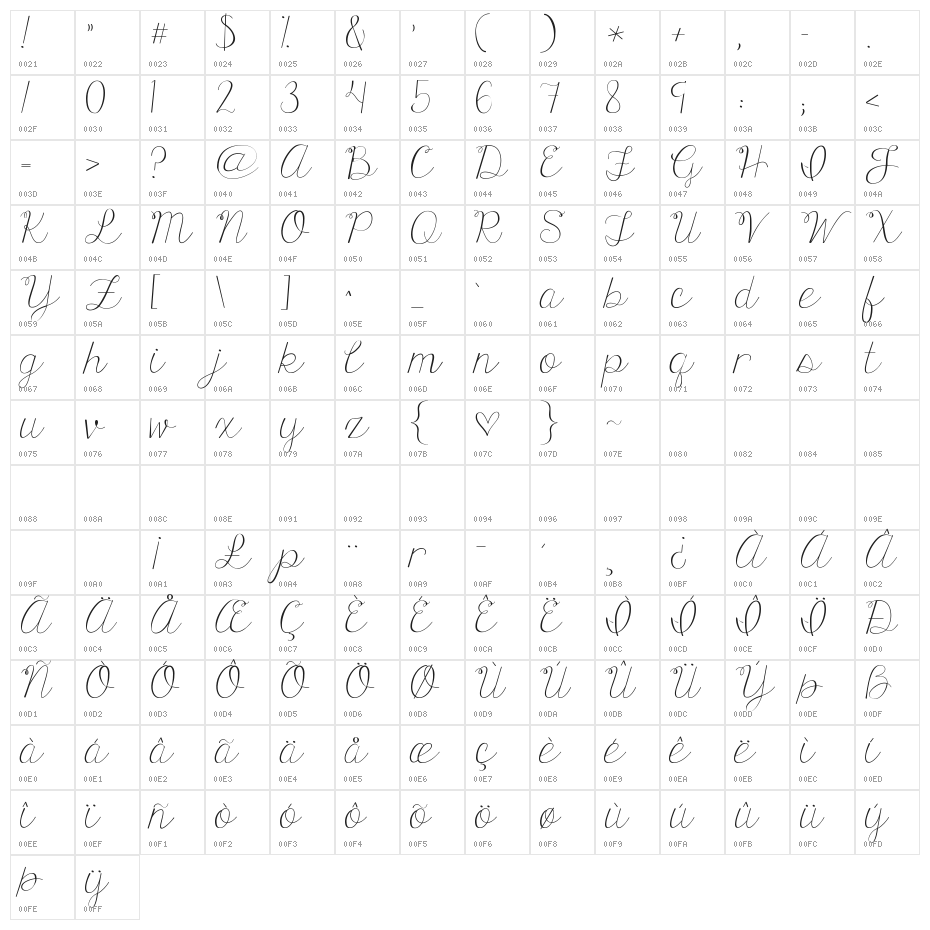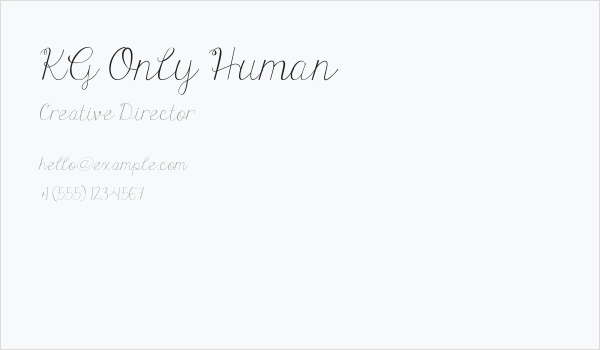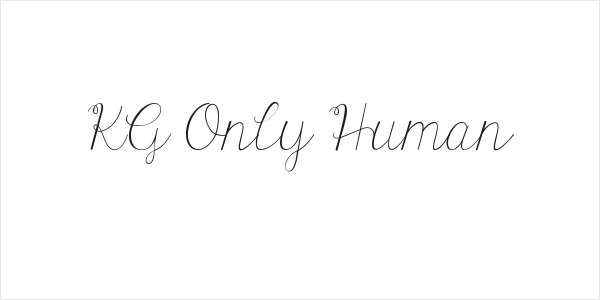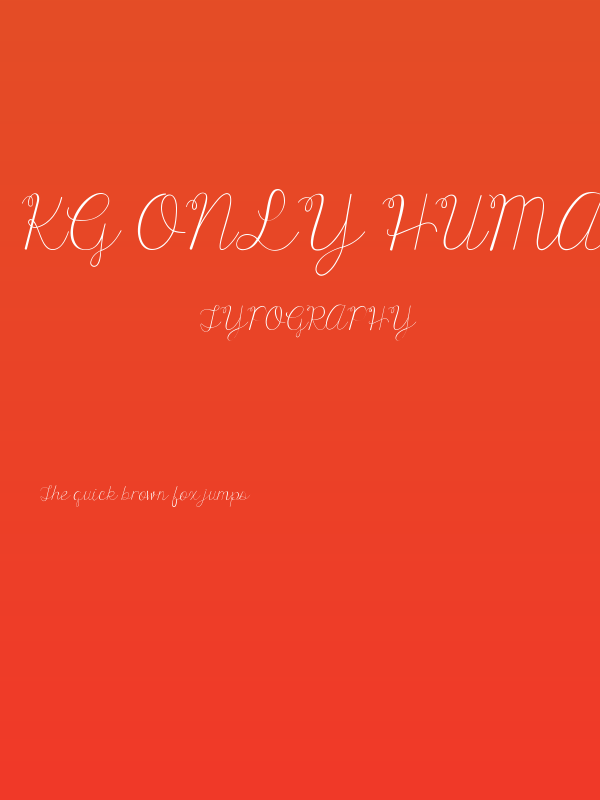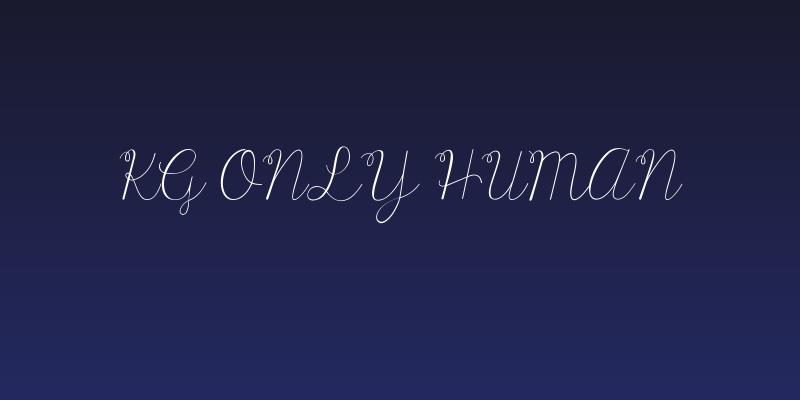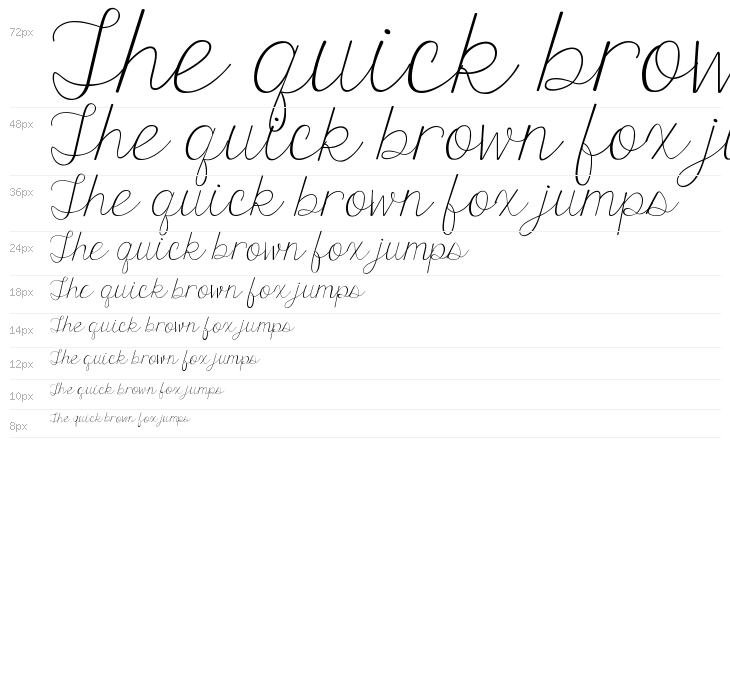
KG Only Human Font
KG Only Human Description
This font features an elegant, flowing script style with a handwritten appearance. The characters are connected, giving it a cohesive and fluid look. The strokes are thin and delicate, with a consistent weight throughout. The uppercase letters are slightly larger and more ornate, while the lowercase letters maintain a smooth and graceful form. Numbers and special characters are designed to match the overall aesthetic, with a touch of sophistication. This font exudes a sense of elegance and charm, making it suitable for projects that require a personal and artistic touch.
| Overall Style | Elegant, Artistic |
| Use Case | Invitations, Artistic projects |
| Proposed Projects | Ideal for wedding invitations, greeting cards, personal branding, and artistic projects. |